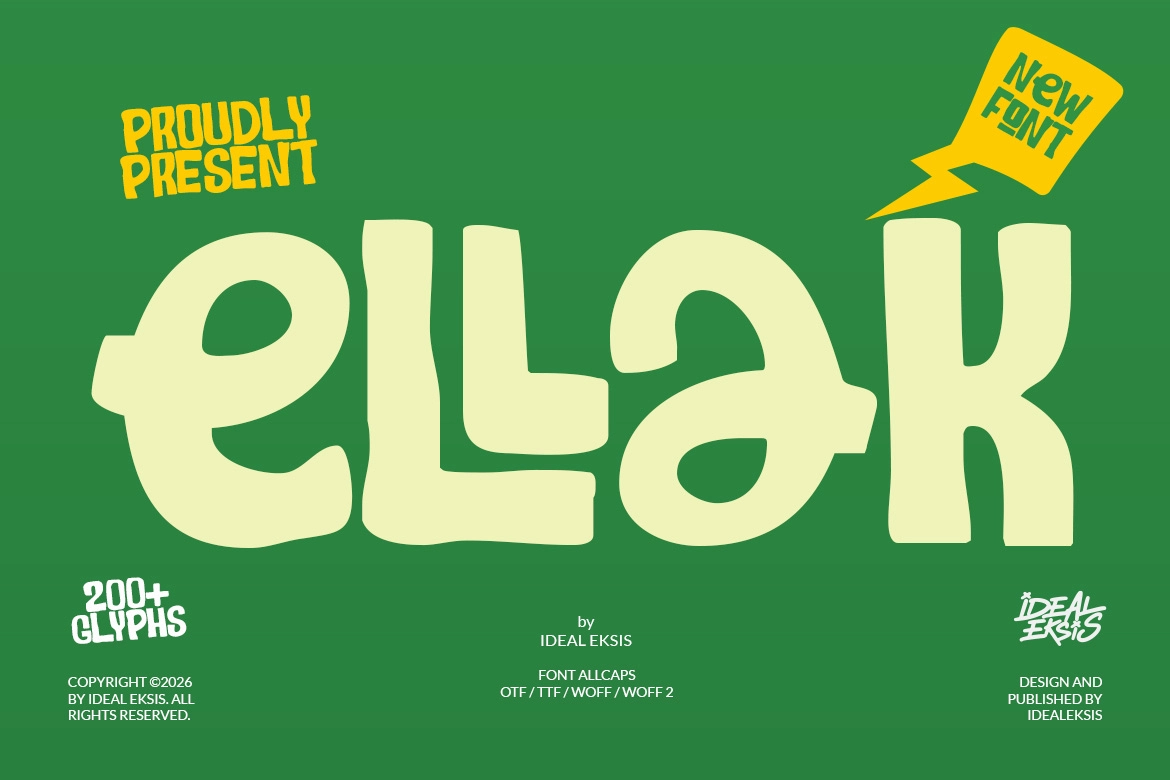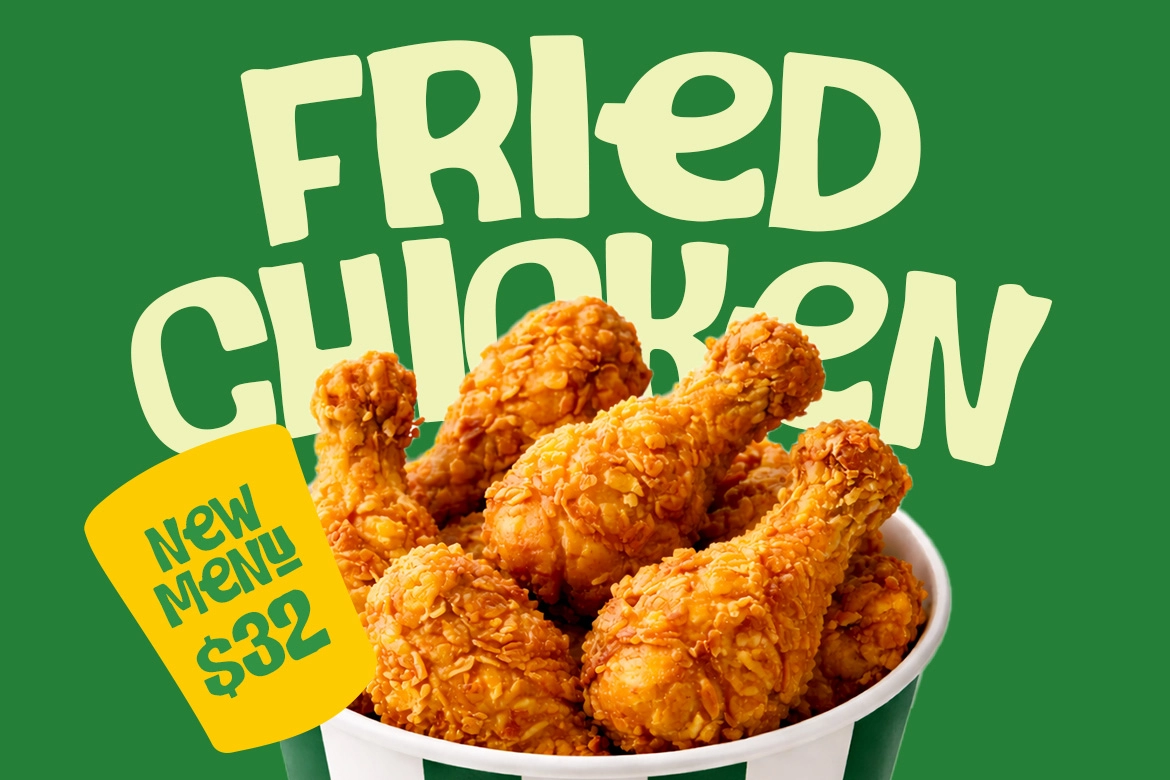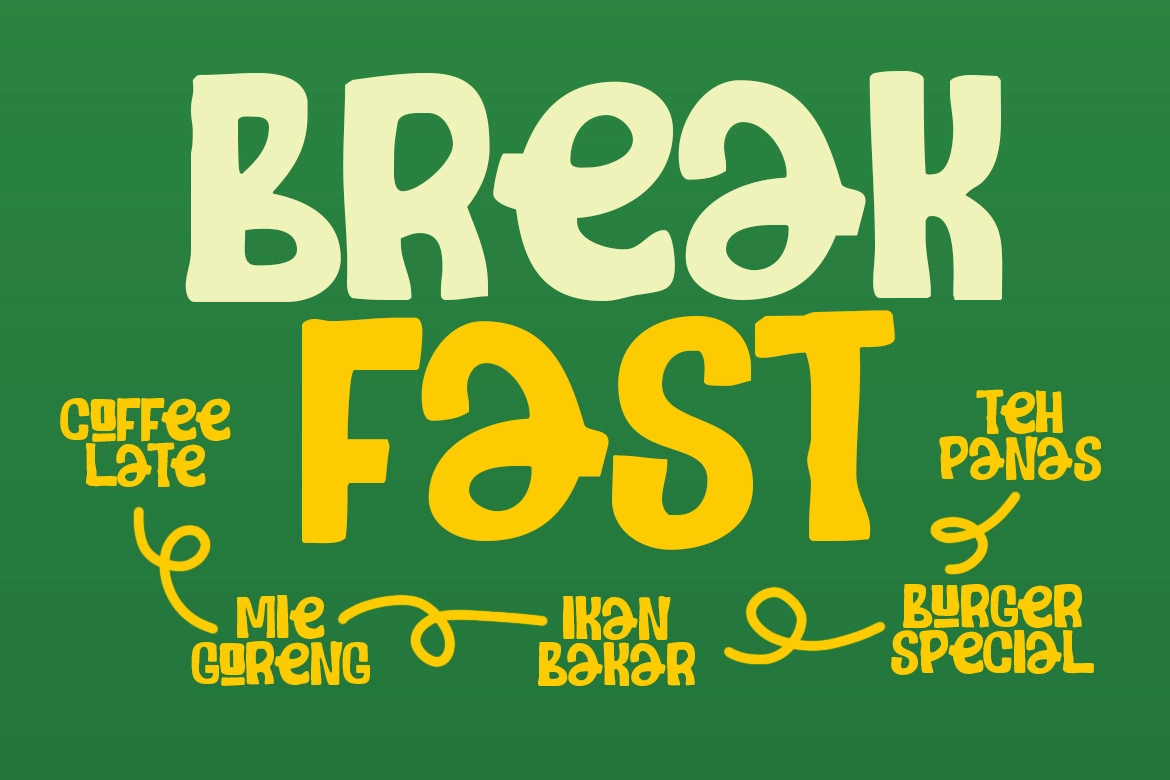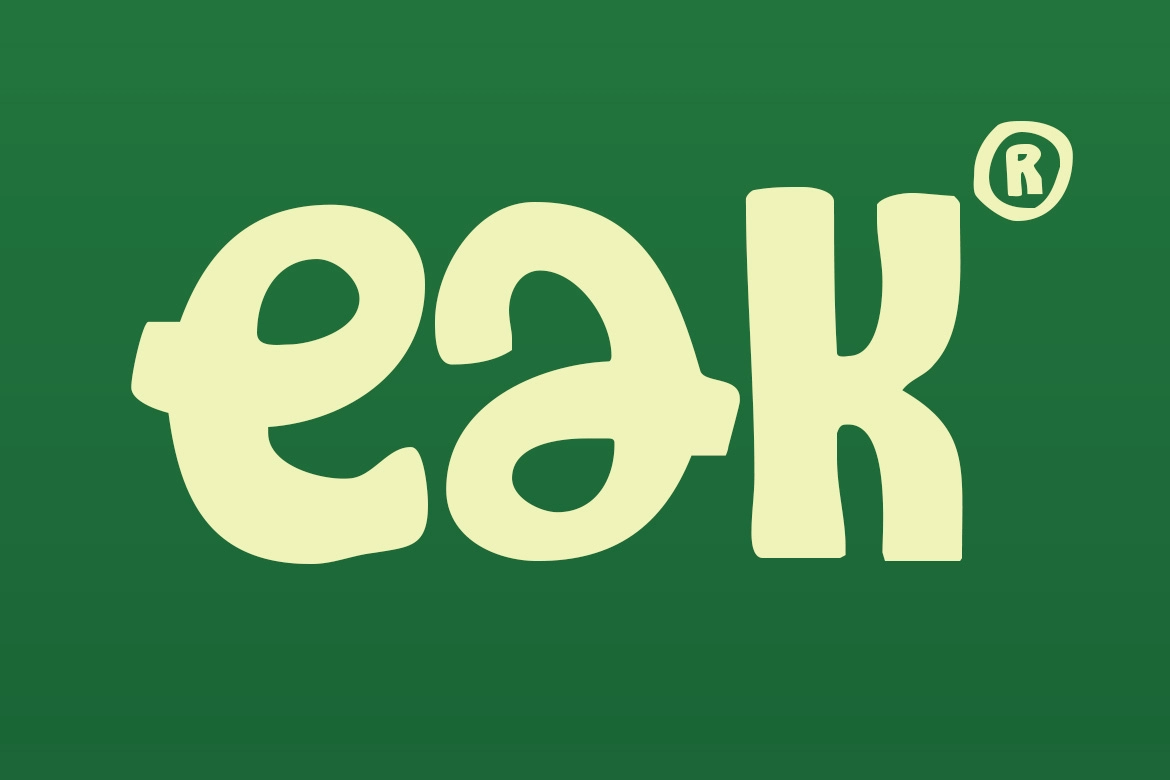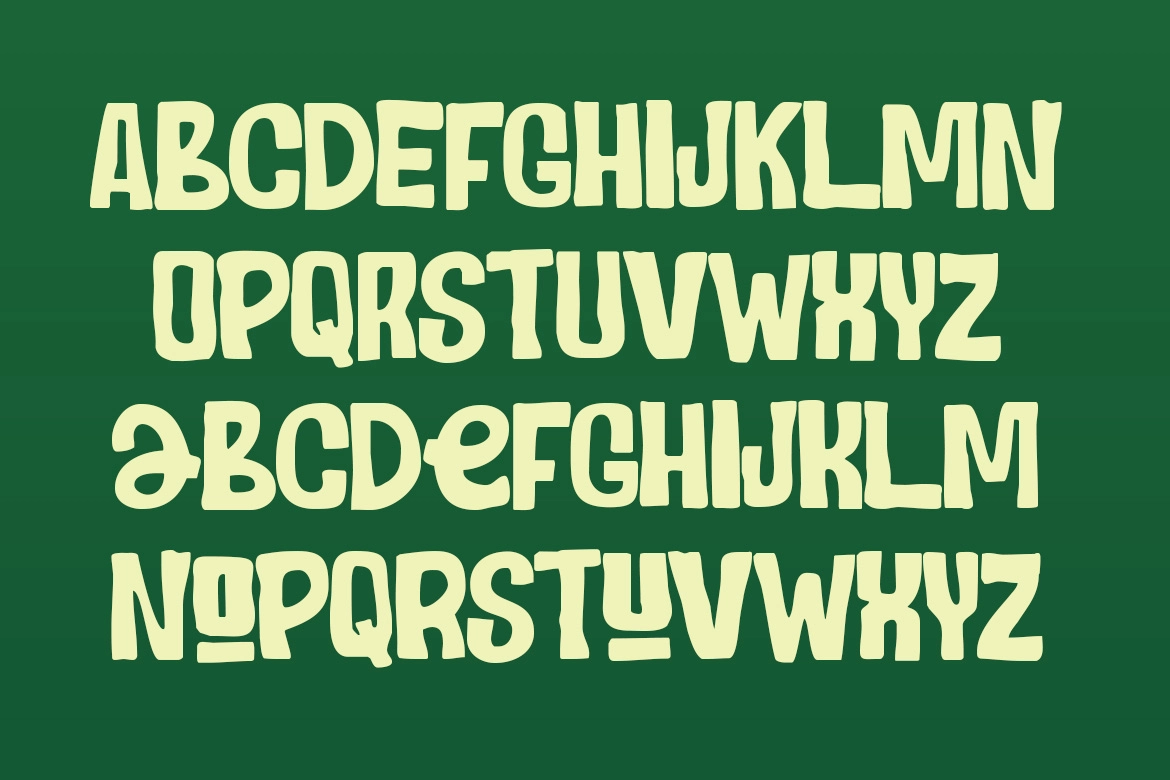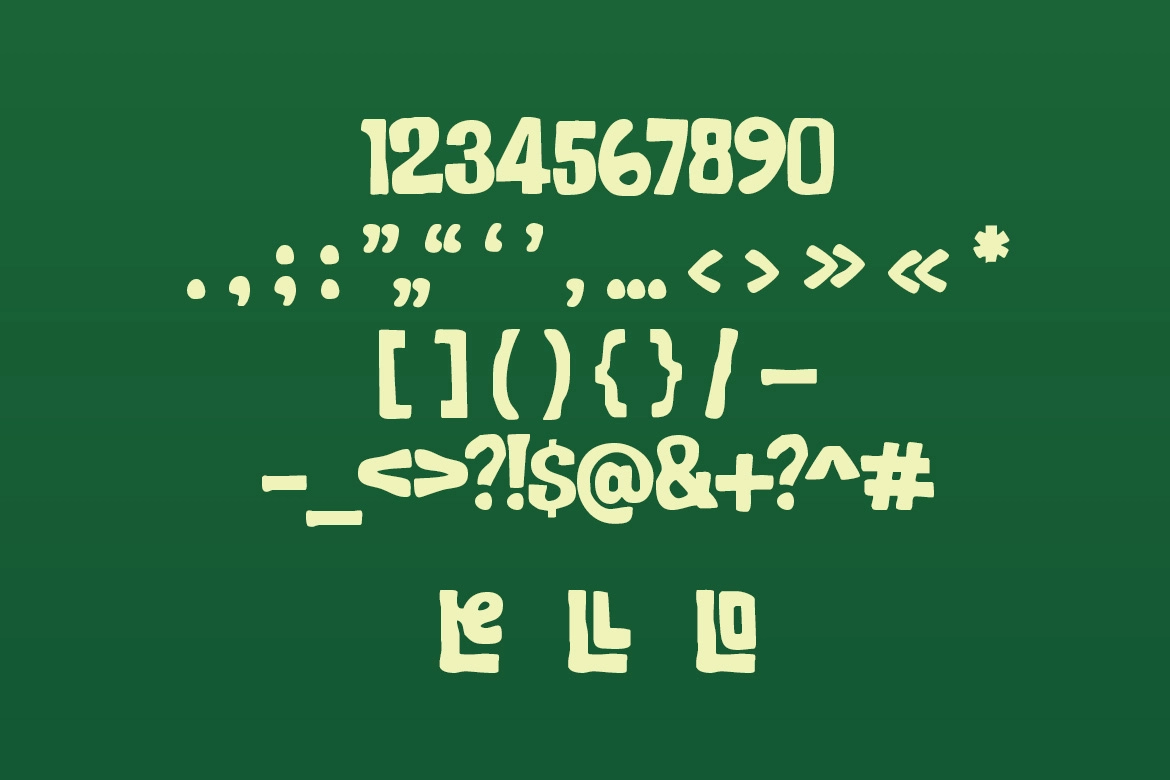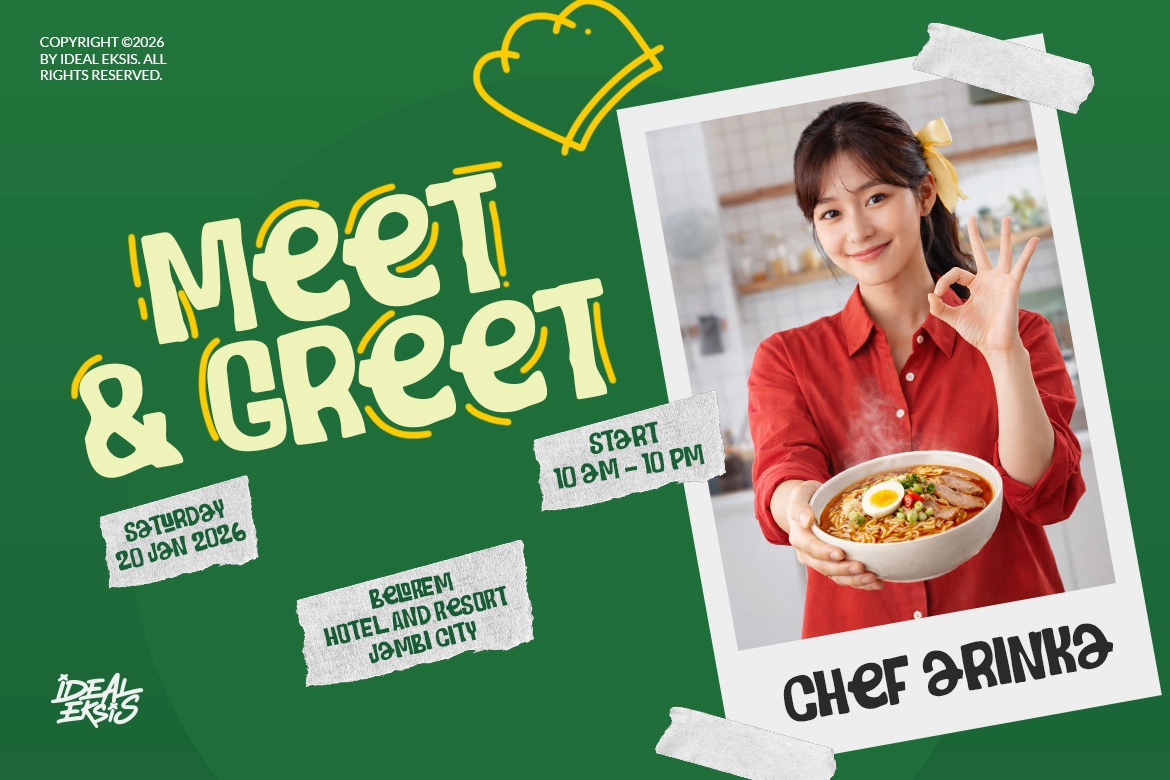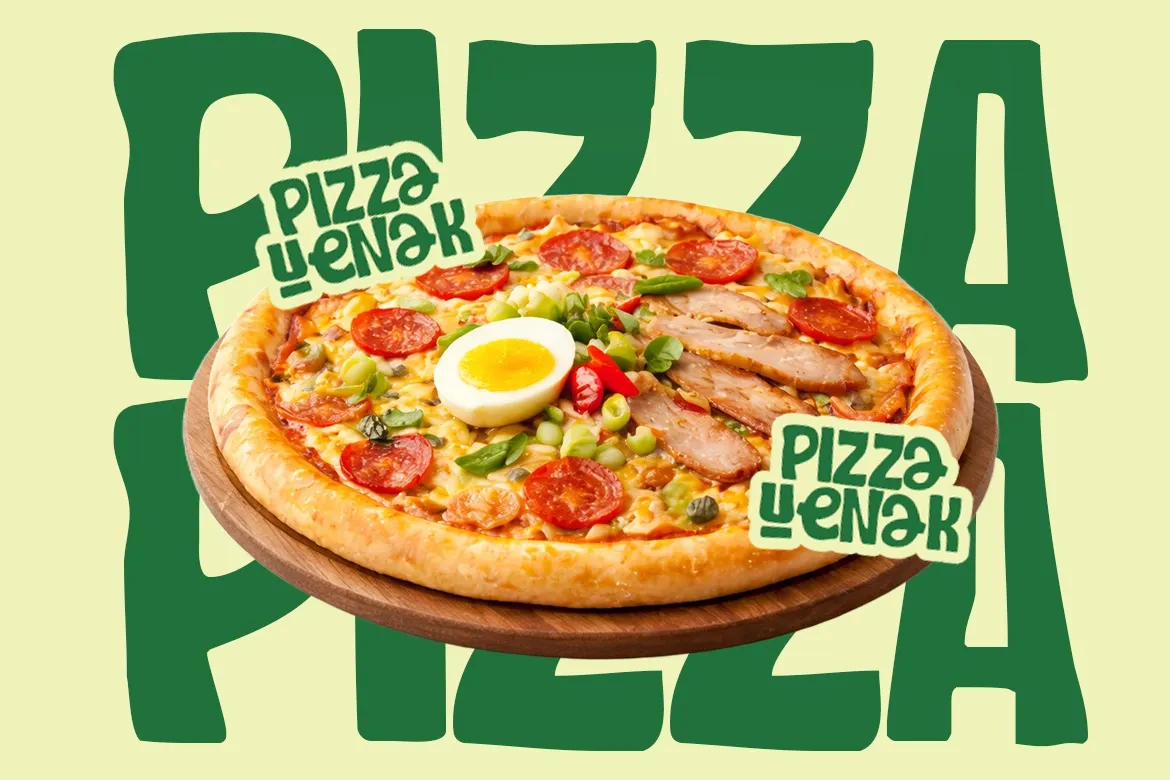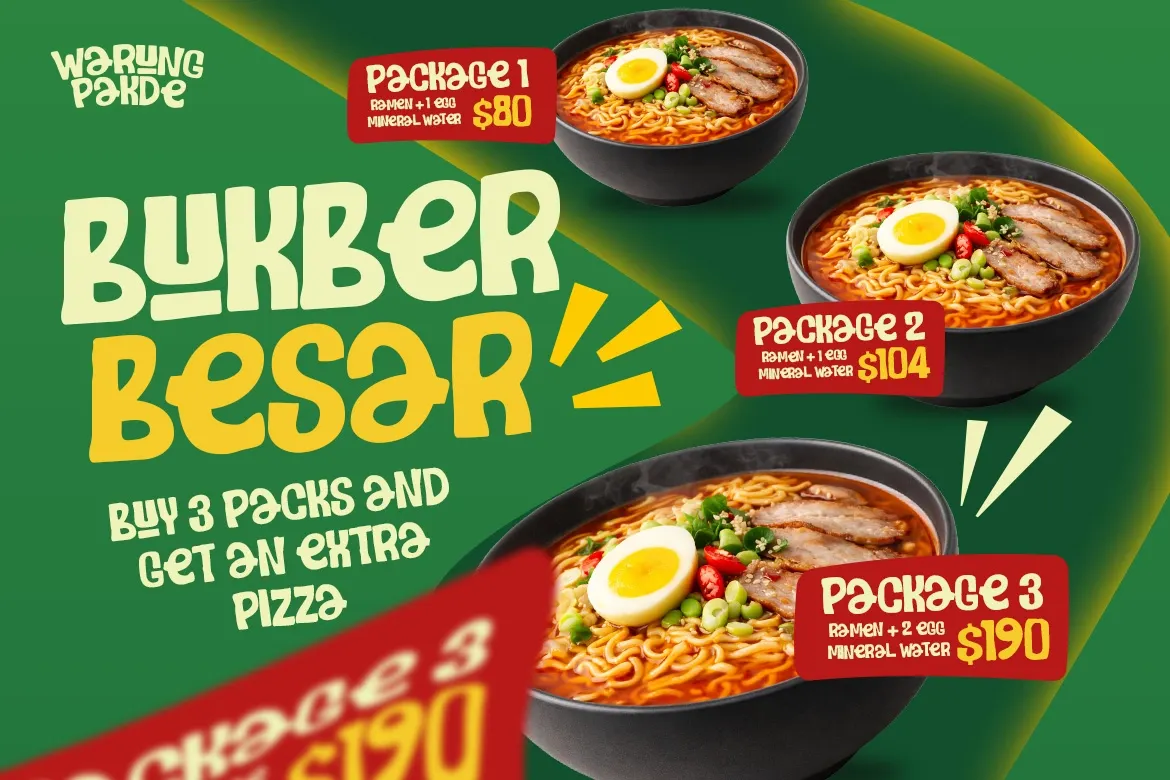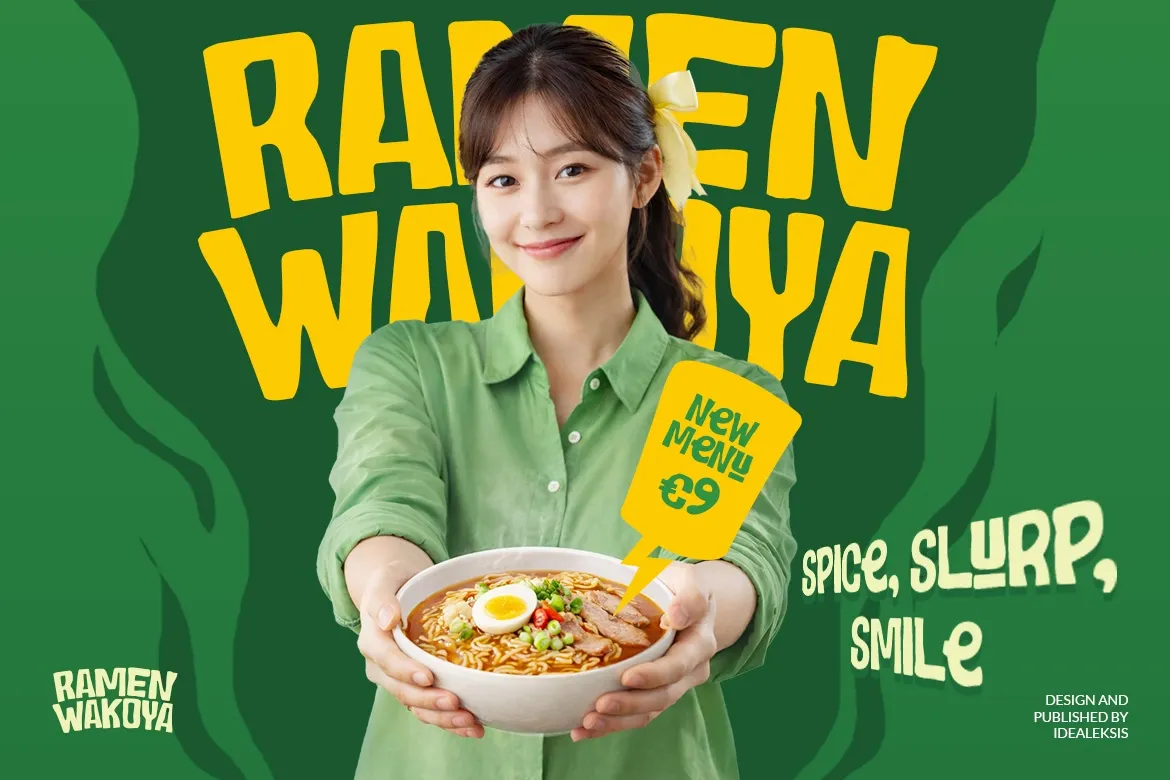
Ellak - Hand Drawn Bold Typeface
Ellak
Ellak - Hand Drawn Bold Typeface is a high-impact display font built with confident strokes and charming irregular shapes. Its chunky, hand-drawn character brings warmth and personality to every composition, making your headlines feel expressive, friendly, and instantly memorable. The bold structure ensures strong visibility, while the playful geometry adds a unique handcrafted touch.
Designed in an all-caps style, Ellak is perfect for projects that need standout typography with a casual, organic vibe. From branding to packaging, this typeface delivers a fun yet powerful presence that grabs attention without losing approachability.
- All Caps Typeface (Uppercase only)
- 200+ Glyphs
- Ligatures Included
- Numerals & Punctuation